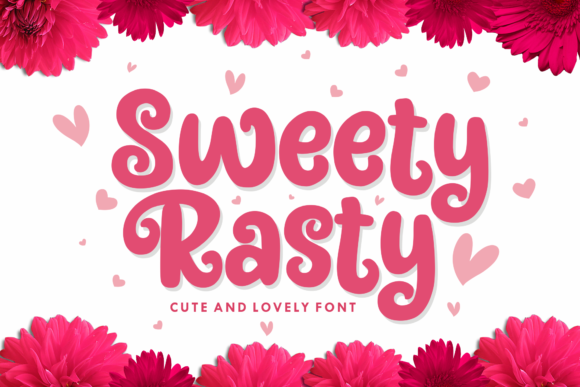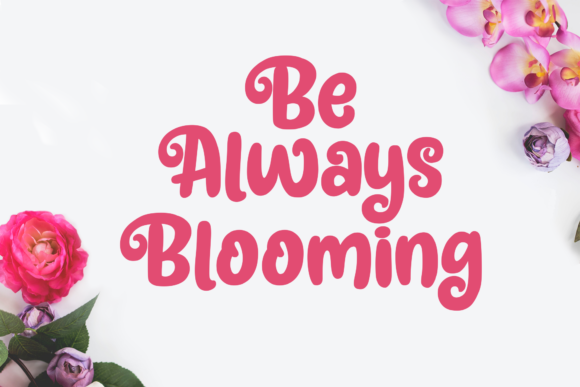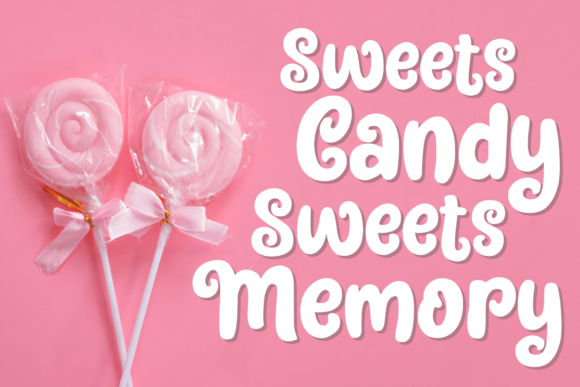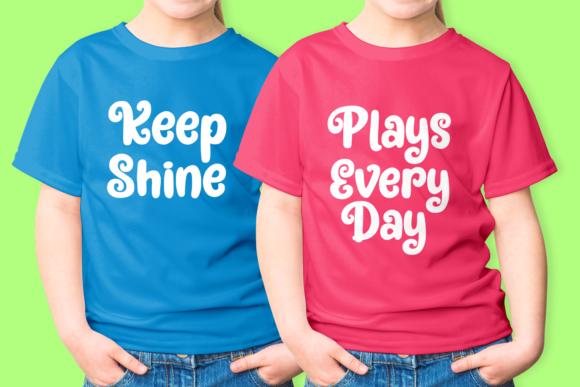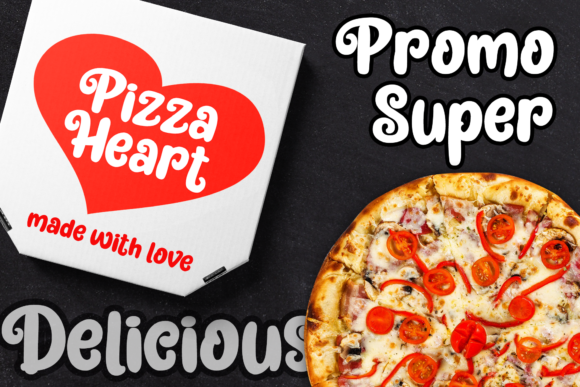
Sweety Rasty
Bold, bubbly script with playful swashes for romantic designs
Sweety Rasty is a bold, bubbly script font with playful swashes and rounded curves, giving it a cute, hand-lettered feel.
It's a great match for wedding invitations, baby shower cards, valentine and love-themed designs, nursery decor, and any whimsical branding that wants a warm, romantic touch.